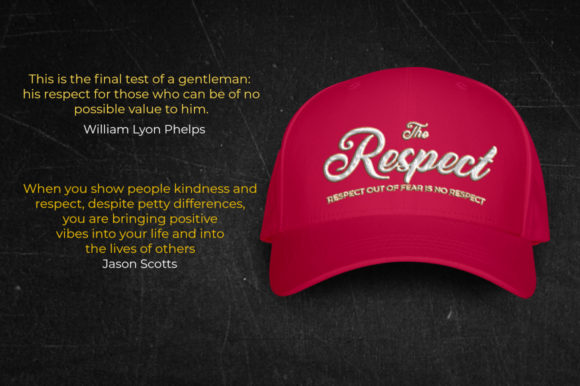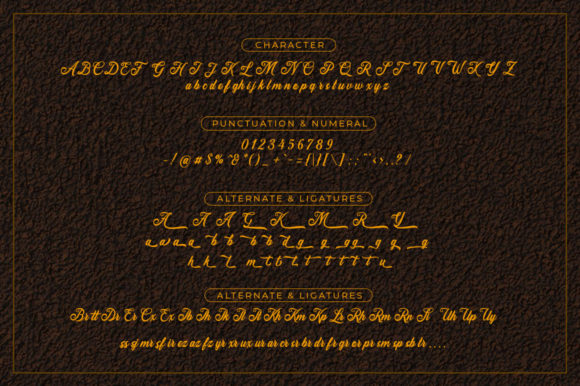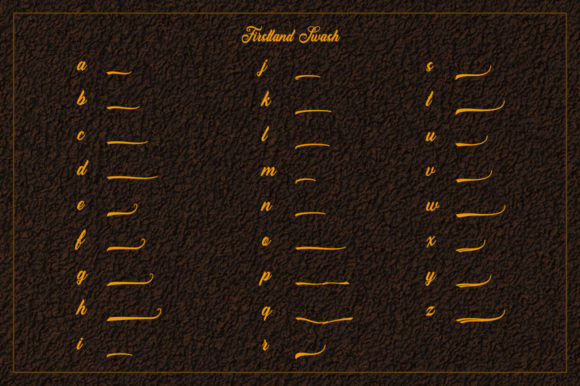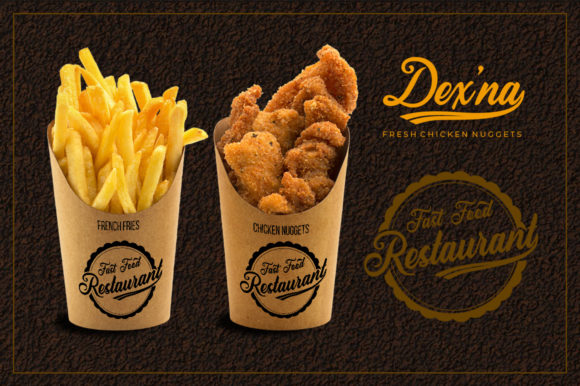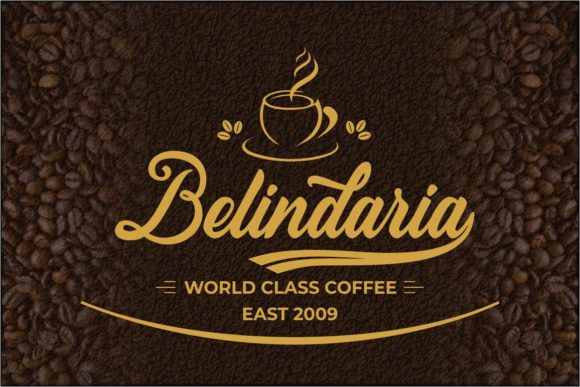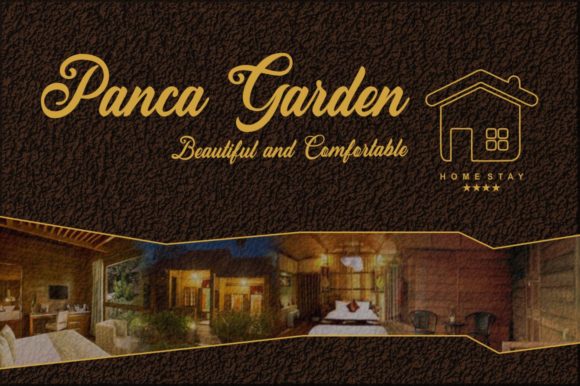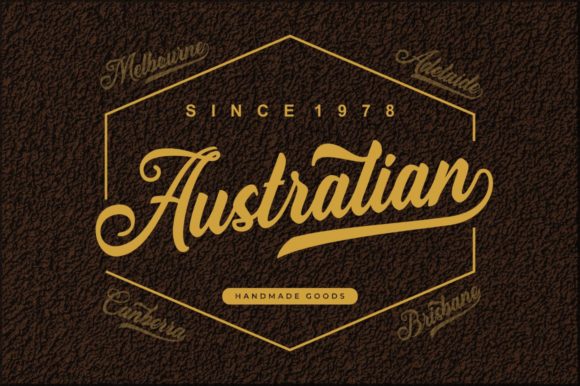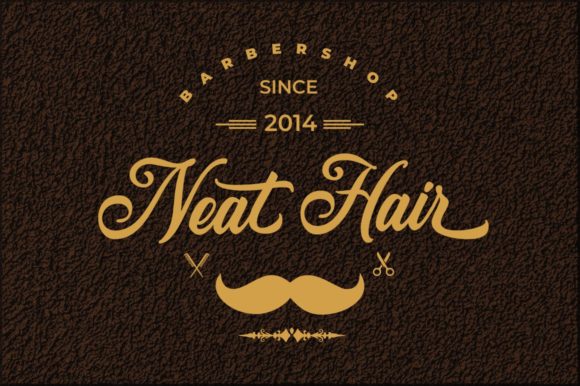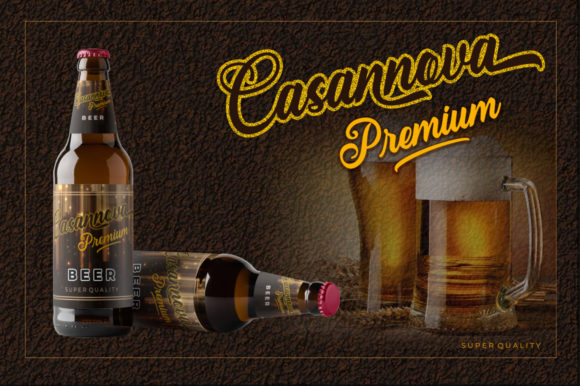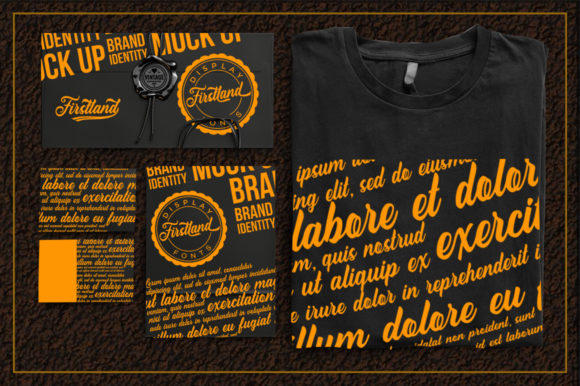
Firstland Font
About Firstland Font
The Firstland is an amazing handwritten font. It has a striking style and and includes lots of alternates that give you the possibility to create a design with charming imperfections, just like real handwriting.
It will work perfectly for fashion designs, e-commerce brands, trend blogs, wedding boutiques or any business that wants to appear upscale and chic.